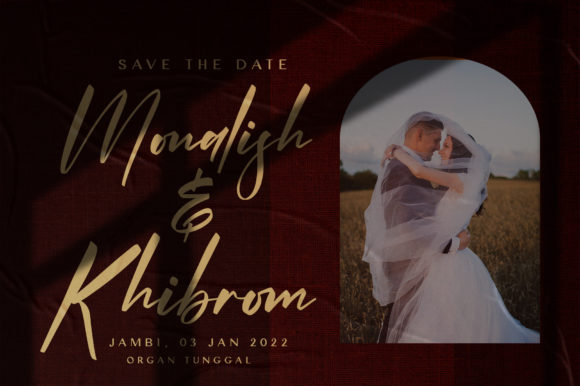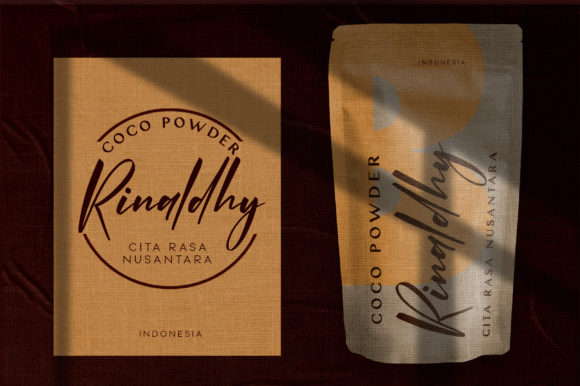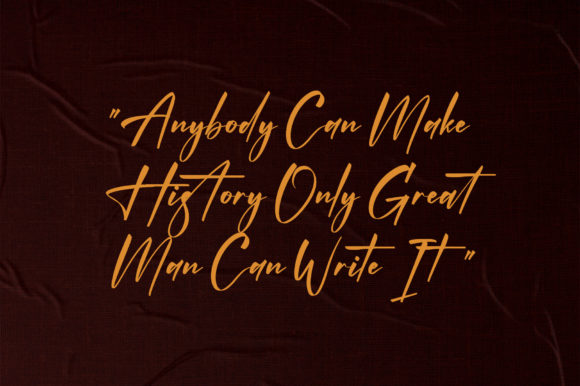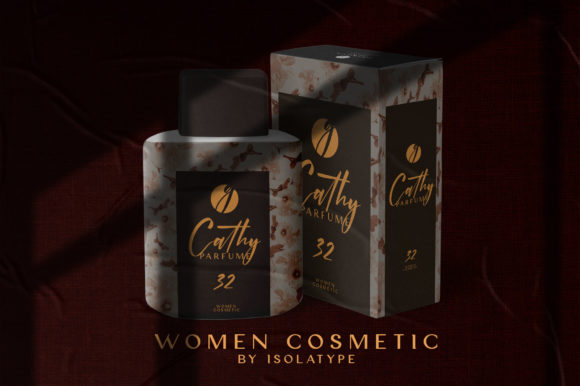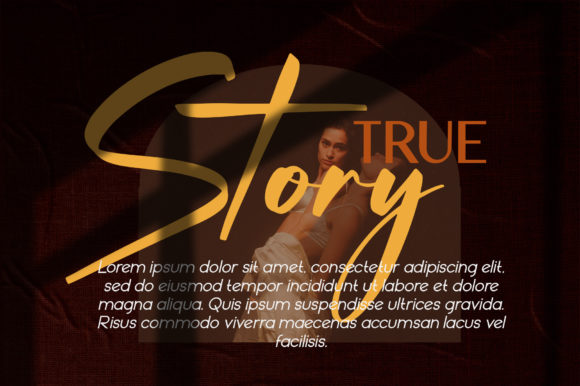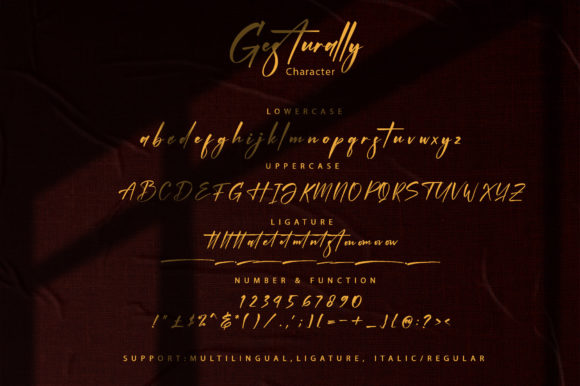
Introducing Gesturally Font: The Timeless Handwritten Font for Stunning Designs
Are you a designer or crafter looking for a font that can add a touch of elegance and personality to your creations? Look no further than Gesturally Font, a lovely and timeless handwritten font that is perfect for creating eye-catching logos, branding, and quotes.
What Makes Gesturally Font Special?
Gesturally Font is a unique and beautiful font that stands out from the crowd. Every letter has a distinctive and lovely touch that will make your design come alive. The font’s handwritten style gives it a personal and approachable feel, making it perfect for designs that require a human touch.
Gesturally Font is an excellent choice for creating stunning logos, branding, and quotes. Its elegant and cursive style makes it perfect for:
- Logos: Create a memorable and impactful logo that reflects your brand’s personality with Gesturally Font.
- Branding: Use Gesturally Font to add a touch of sophistication and elegance to your brand’s identity.
- Quotes: Make your quotes stand out with Gesturally Font’s beautiful and unique lettering style.
Why Choose Gesturally Font?
There are many reasons why Gesturally Font is the perfect choice for designers and crafters. Here are a few:
- Unique and Beautiful: Every letter in Gesturally Font has a unique and beautiful touch that will make your design stand out.
- Timeless: Gesturally Font has a timeless quality that ensures your design will not go out of style.
- Handwritten Style: The font’s handwritten style gives it a personal and approachable feel.
- Elegant and Cursive: Gesturally Font’s elegant and cursive style makes it perfect for designs that require a touch of sophistication.
Tips for Using Gesturally Font
Here are a few tips for using Gesturally Font to get the most out of this beautiful font:
- Use it for Headlines: Gesturally Font is perfect for headlines and titles, where its elegant and cursive style can make a big impact.
- Pair it with Other Fonts: Experiment with pairing Gesturally Font with other fonts to create a unique and interesting design.
- Use it for Branding: Use Gesturally Font consistently across your branding materials to create a cohesive and recognizable identity.
In conclusion, Gesturally Font is a lovely and timeless handwritten font that is perfect for designers and crafters looking to add a touch of elegance and personality to their creations. Its unique and beautiful lettering style, combined with its elegant and cursive style, make it perfect for creating stunning logos, branding, and quotes. Whether you’re a seasoned designer or just starting out, Gesturally Font is an excellent choice for any design project.